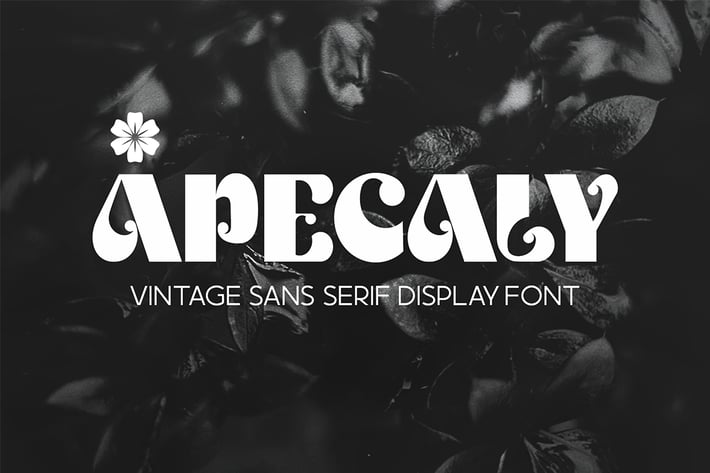
Apecaly - Vintage Font
Introducing Apecaly, an classic, elegant, and vintage font. Its unique and lovely feel.
So perfect for you who needs a typeface for logo designs, magazine, social media, brochure, and many more.